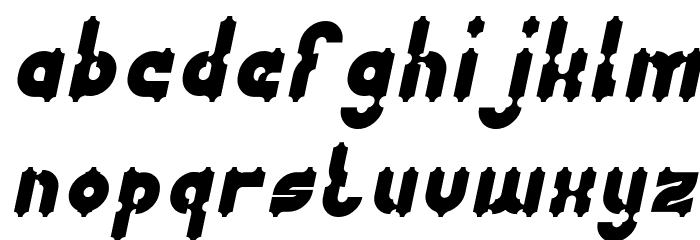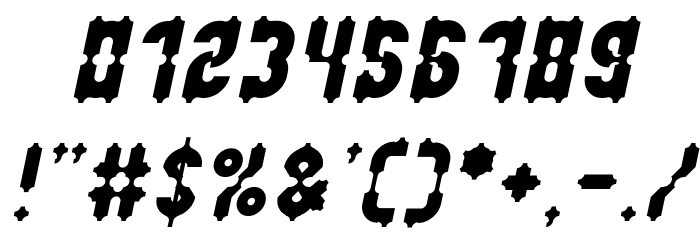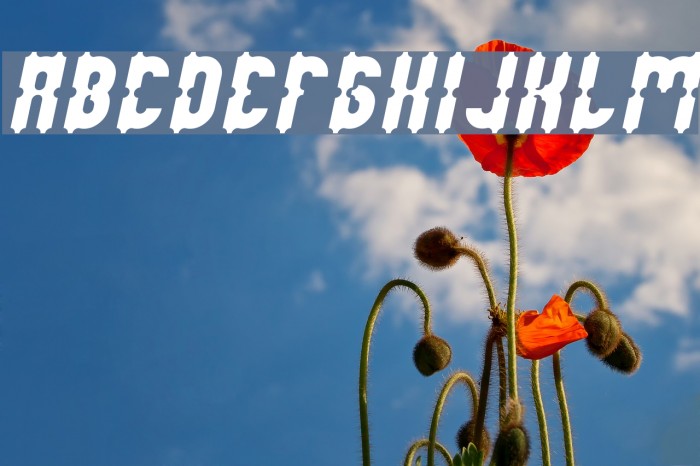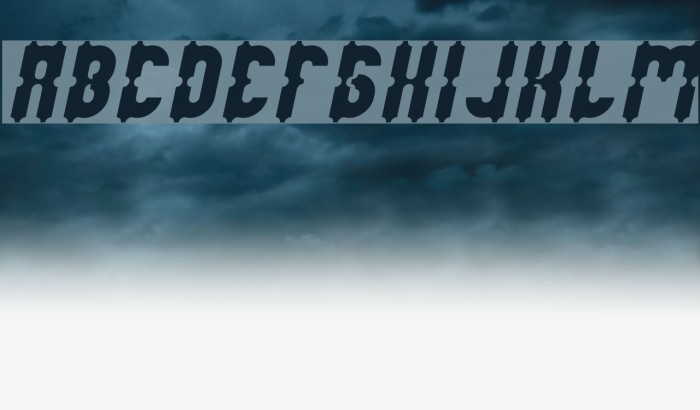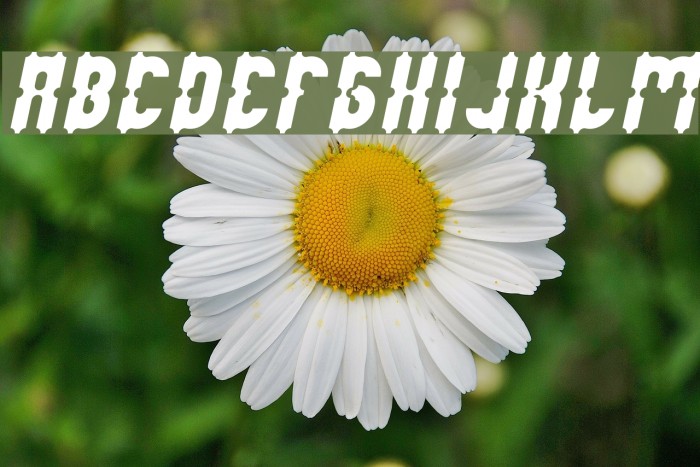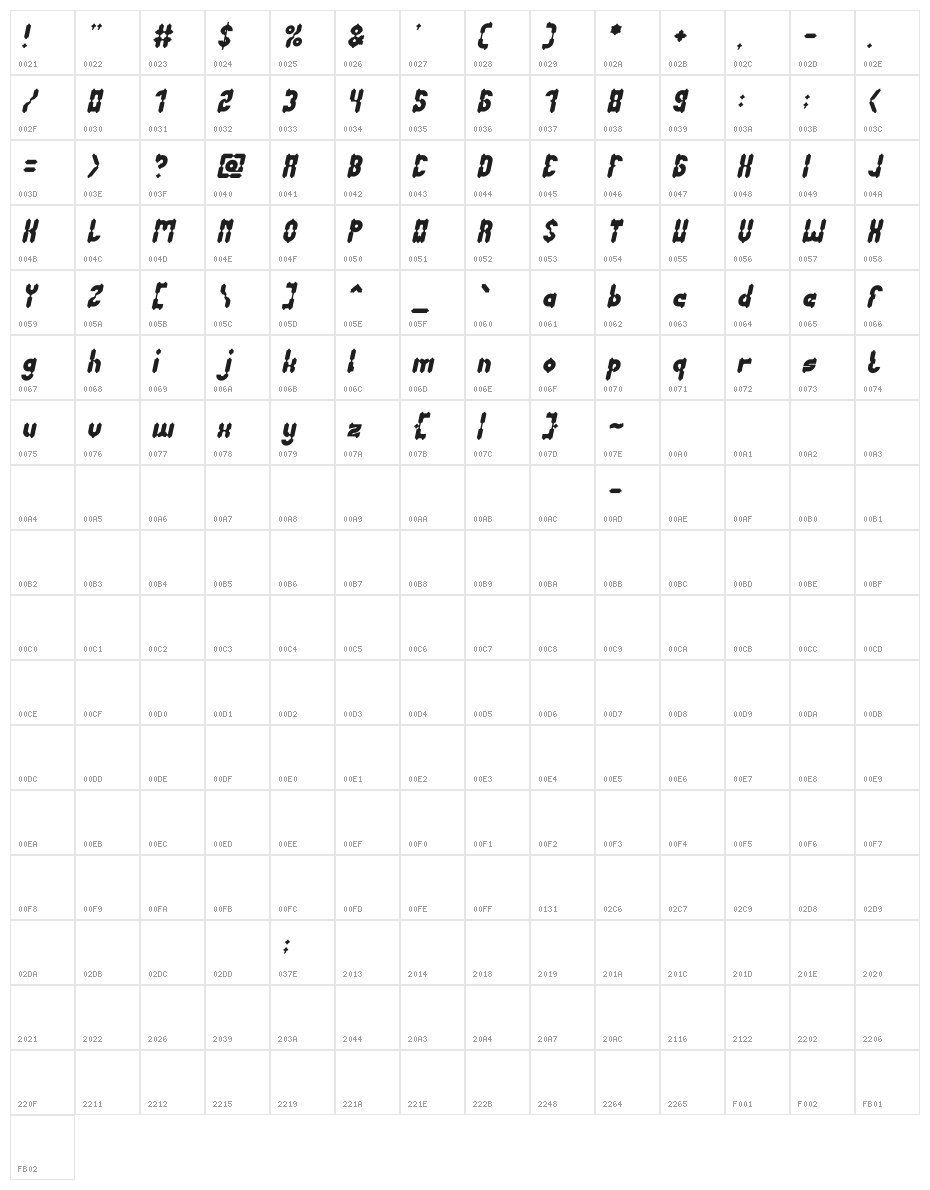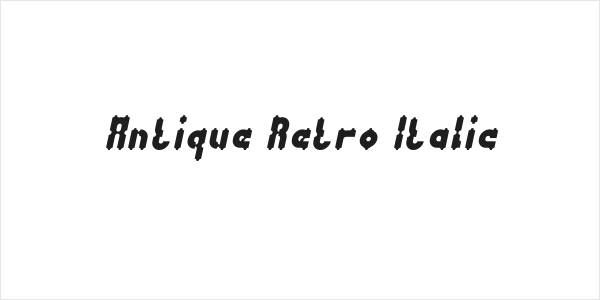
Antique Retro Italic Font
This font features a bold and dynamic style with a distinctly retro flair. The characters are italicized, adding a sense of motion and energy. Each letter is crafted with a unique silhouette, incorporating sharp angles and curves that evoke a vintage aesthetic. The font's bold weight and high contrast between thick and thin strokes make it stand out, while the condensed width ensures it remains compact and efficient in space usage. The character spacing is tight, contributing to its cohesive and impactful appearance. This font is ideal for projects that require a nostalgic yet lively touch, such as vintage-themed posters, retro branding, or eye-catching headlines.
A bold, italicized retro font with high contrast and a vintage aesthetic.
- Proposed Projects: Ideal for vintage-themed posters, retro branding, and eye-catching headlines.
- Character Spacing: Tight
- Overall Style: Vintage